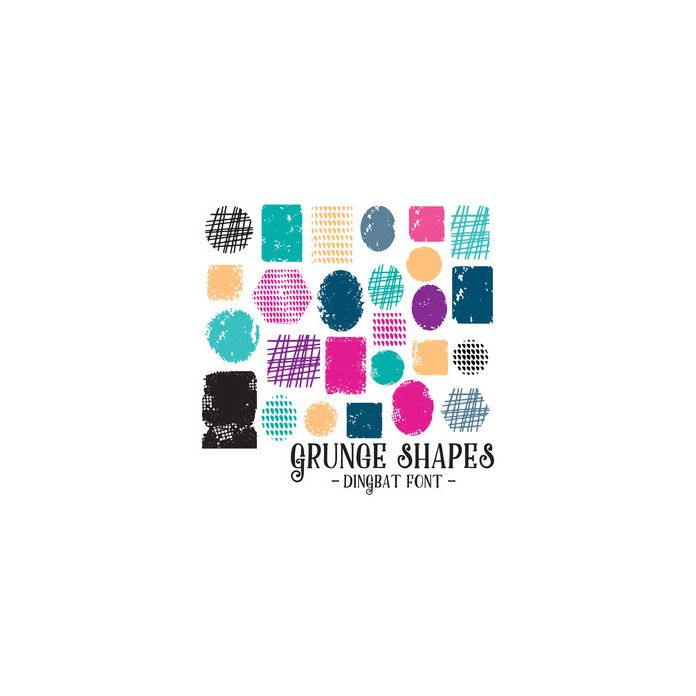
Grunge Shapes Hand Drawn Paint, Texture and Effect Font, with 26 grungy effect shapes, perfect to use as backgrounds or labels. All dingbats are allocated to upper and lowercase letters and can be accessed via the glyphs panel or character map.